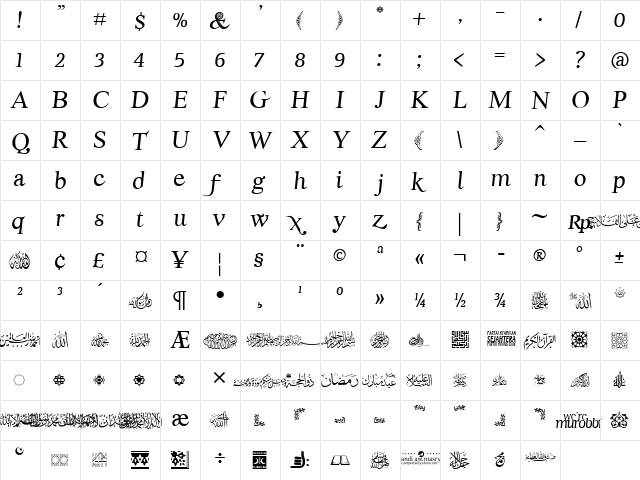
pks-masry Italic
| Designer | andi aw. masry |
Design Context for pks-masry Typeface
pks-masry is a composed and adaptable typeface that performs quietly and consistently across a wide range of design contexts. Its italic angle brings a sense of urgency and motion to the letterforms.